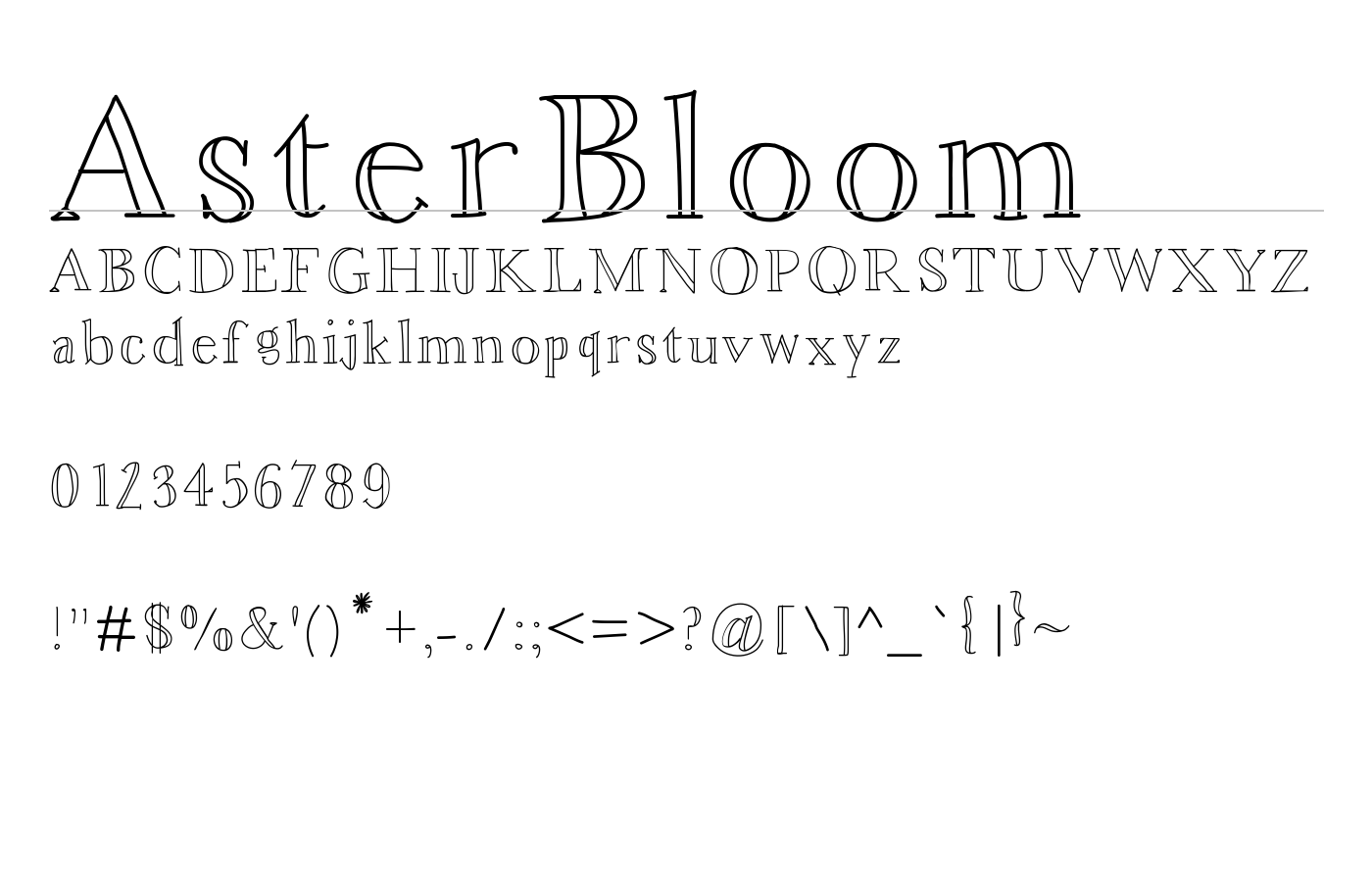
AsterBloom is a delicate serif font featuring slender, tall letterforms with high contrast between thin and thicker strokes, giving it an elegant and refined appearance. Its quirky, slightly irregular details add a whimsical, handcrafted charm, making it ideal for creative branding, editorial headlines, and sophisticated packaging that seeks a vintage yet playful feel. This font works best in display settings where its unique personality can shine and draw attention.
AsterBloom Font